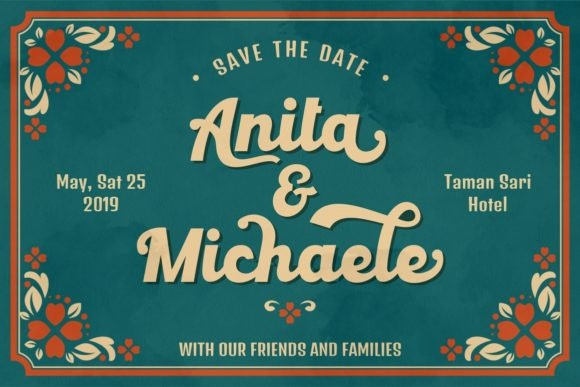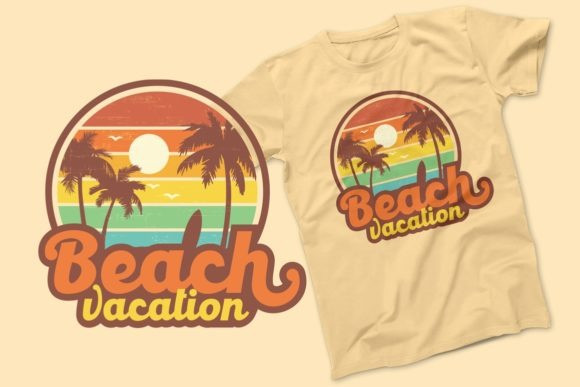
Batmeton Script Font
We are happy to share with you typeface, Batmeton Script is a free-flowing script font created for packaging products, invitation cards, flyers, mockups, event posters, and anything else that requires high-quality vibes. It has a beautiful and balanced character, that fits well with the large design pool.